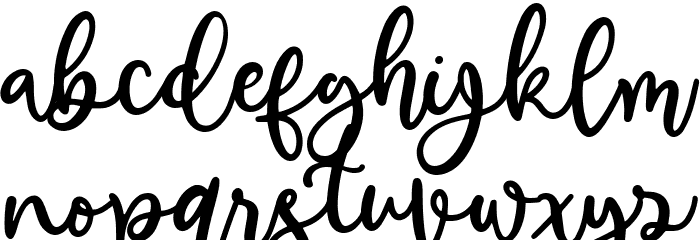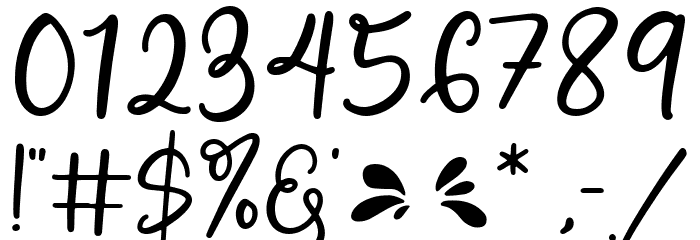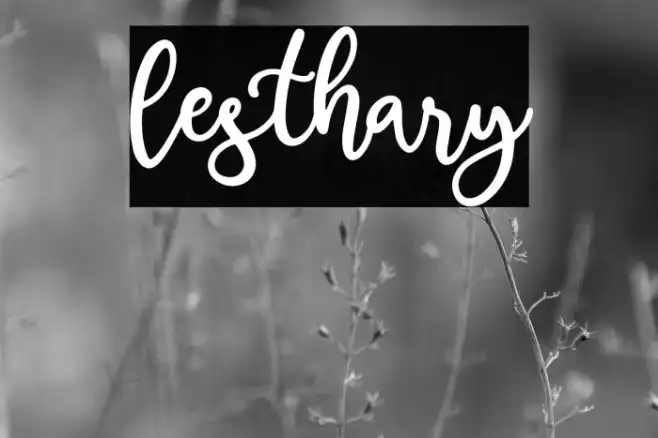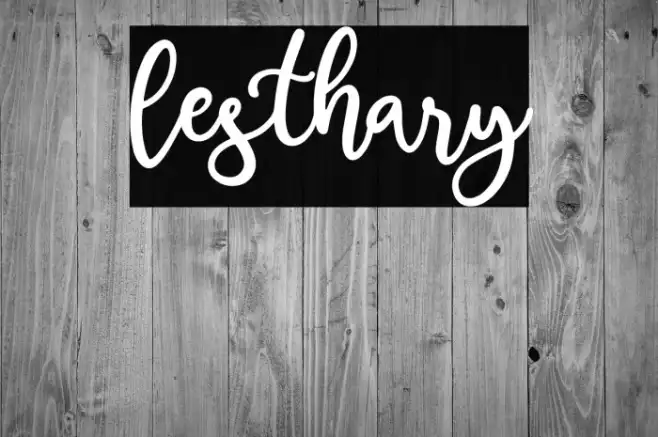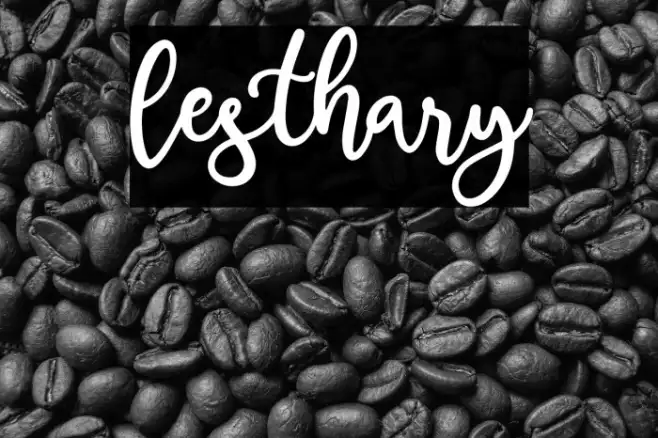
lesthary Font
This font features a playful and casual script style with a handwritten appearance. The characters are connected, creating a fluid and dynamic look. The uppercase letters are bold and slightly larger than the lowercase, which are more delicate and rounded. The numbers maintain the same playful style, with consistent stroke thickness throughout. Special characters are creatively designed, adding to the font's overall charm. This font is perfect for projects that require a personal touch or a friendly, approachable vibe.
A playful, handwritten script font with fluid, connected characters.
- Proposed Projects: Ideal for greeting cards, invitations, personal branding, and social media graphics.
- Overall Style: Casual, Playful
- Use Case: Logos, Invitations, Social Media